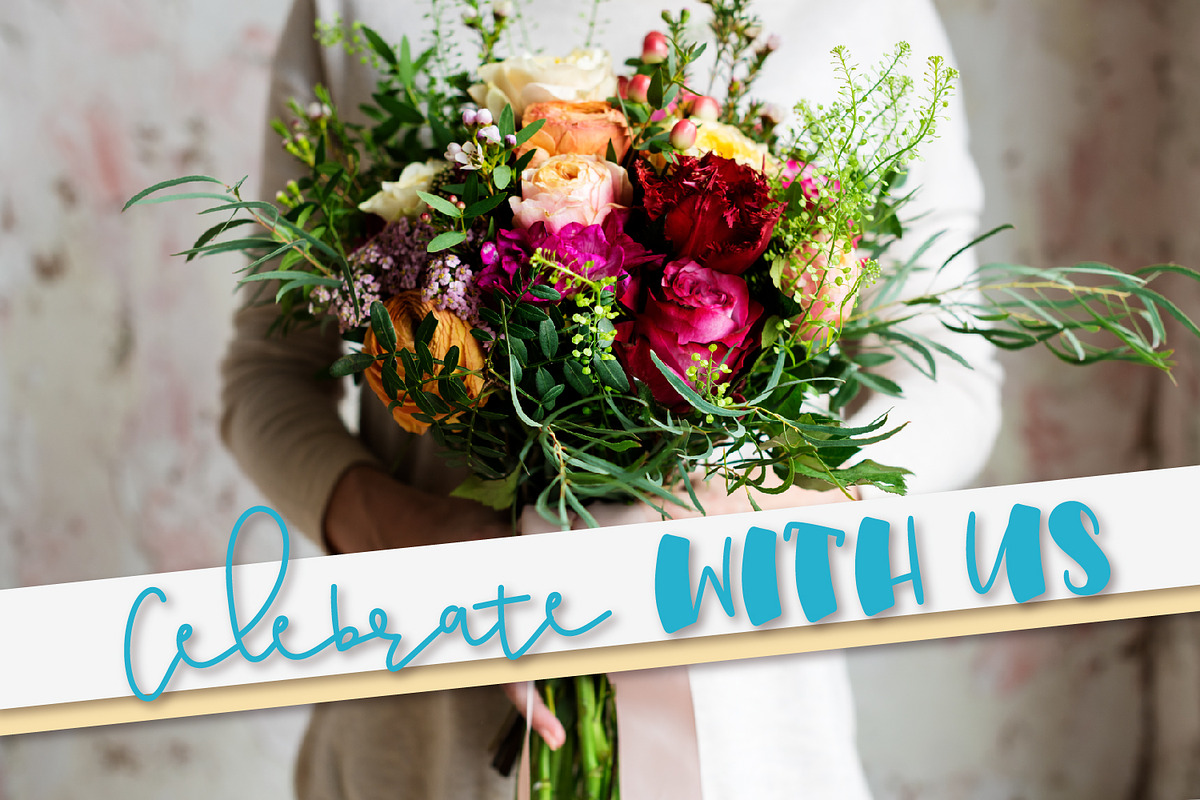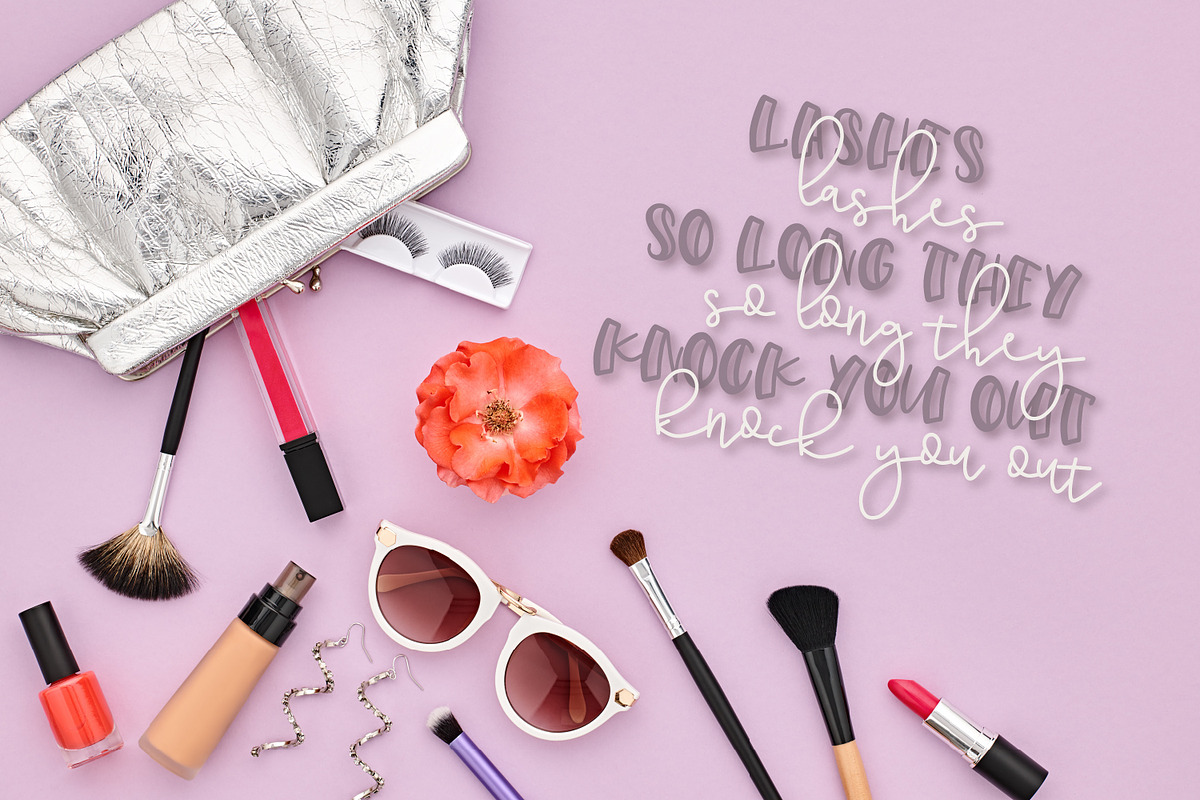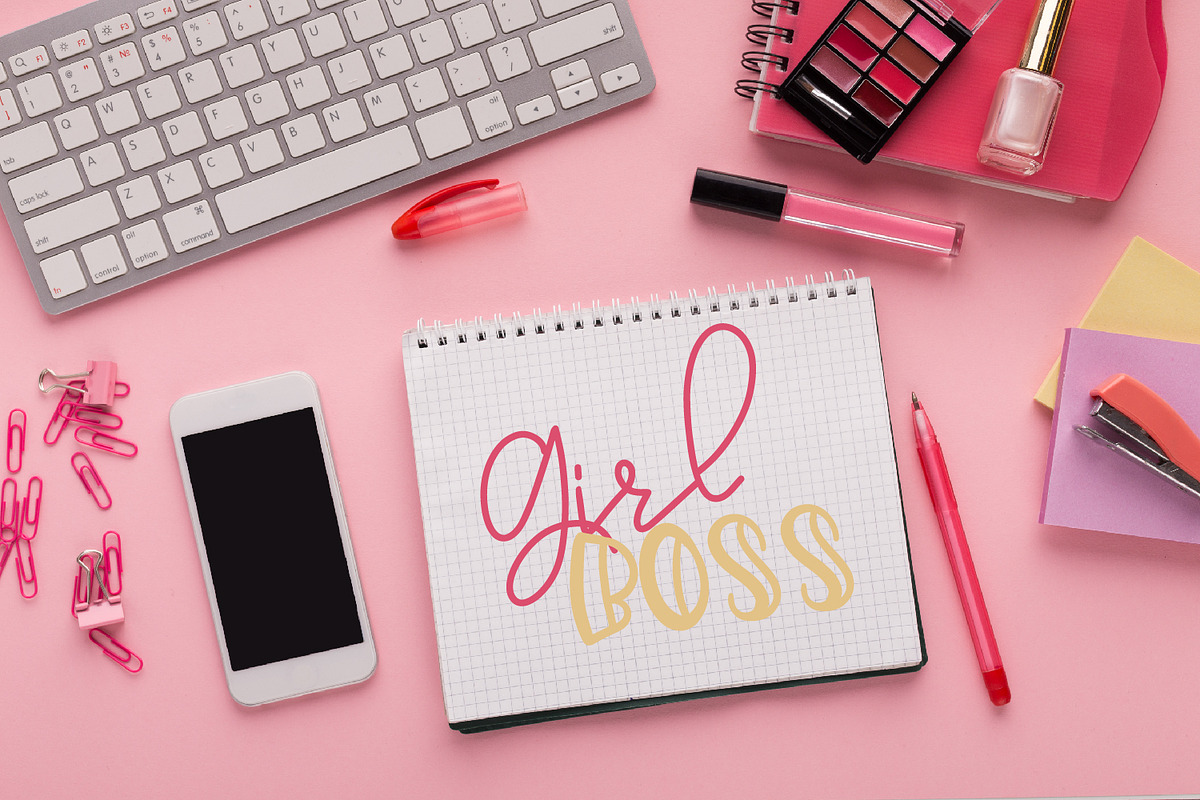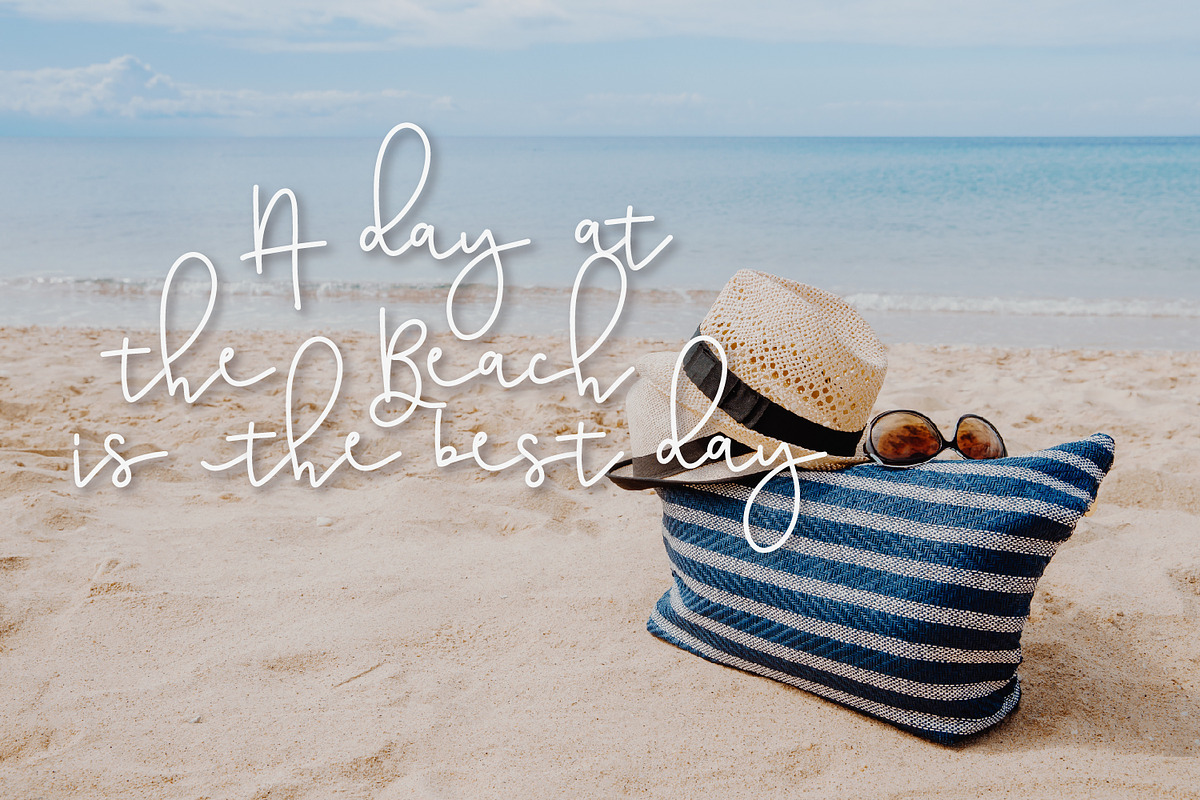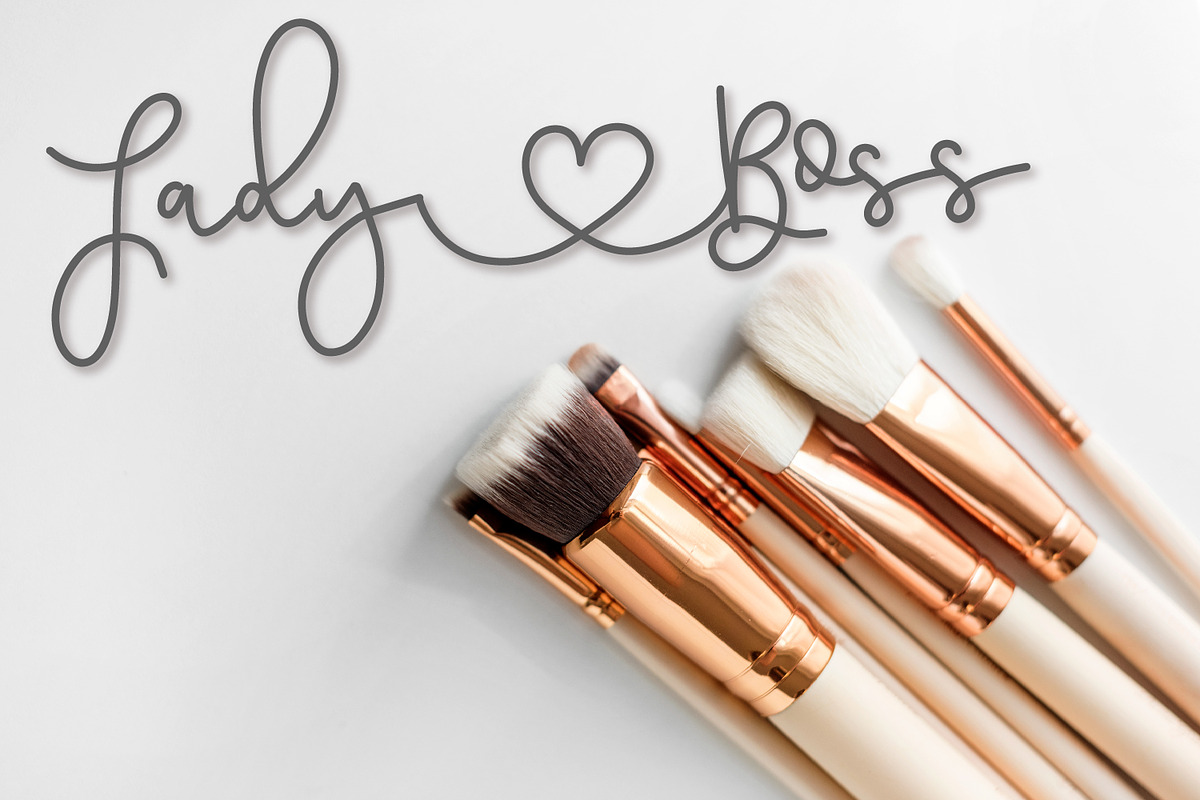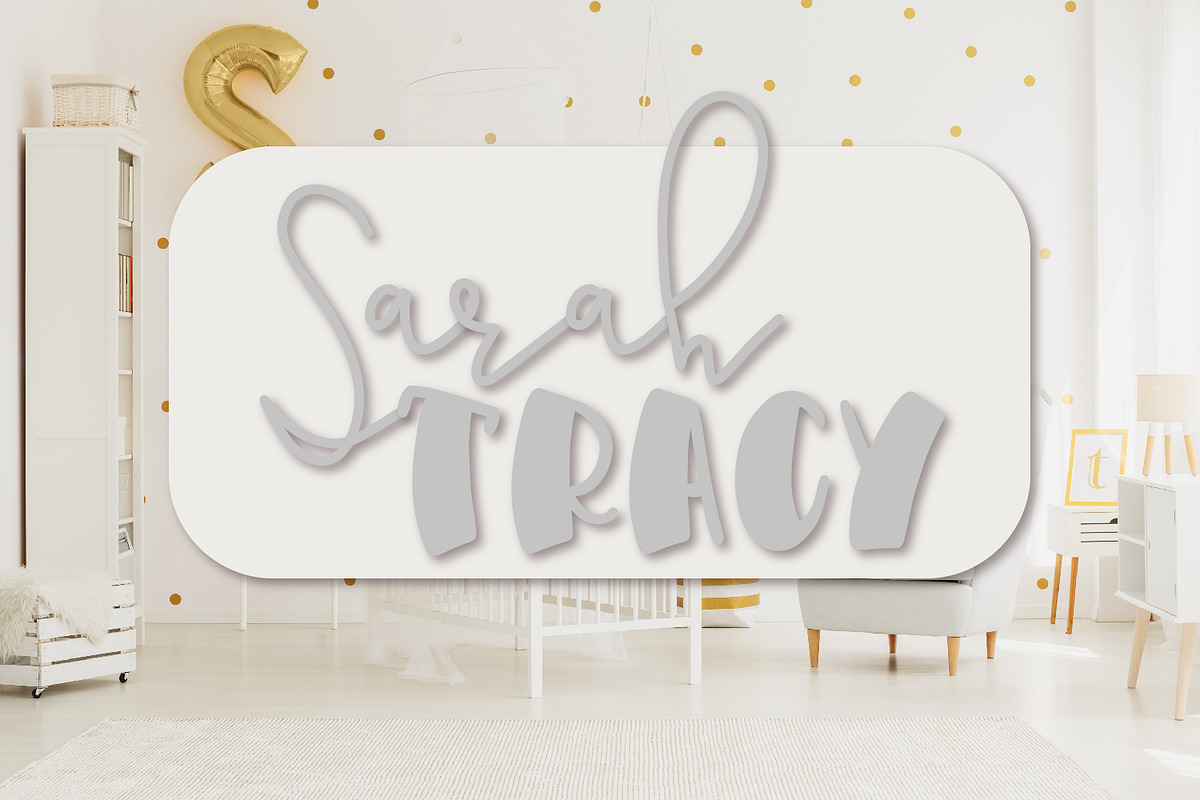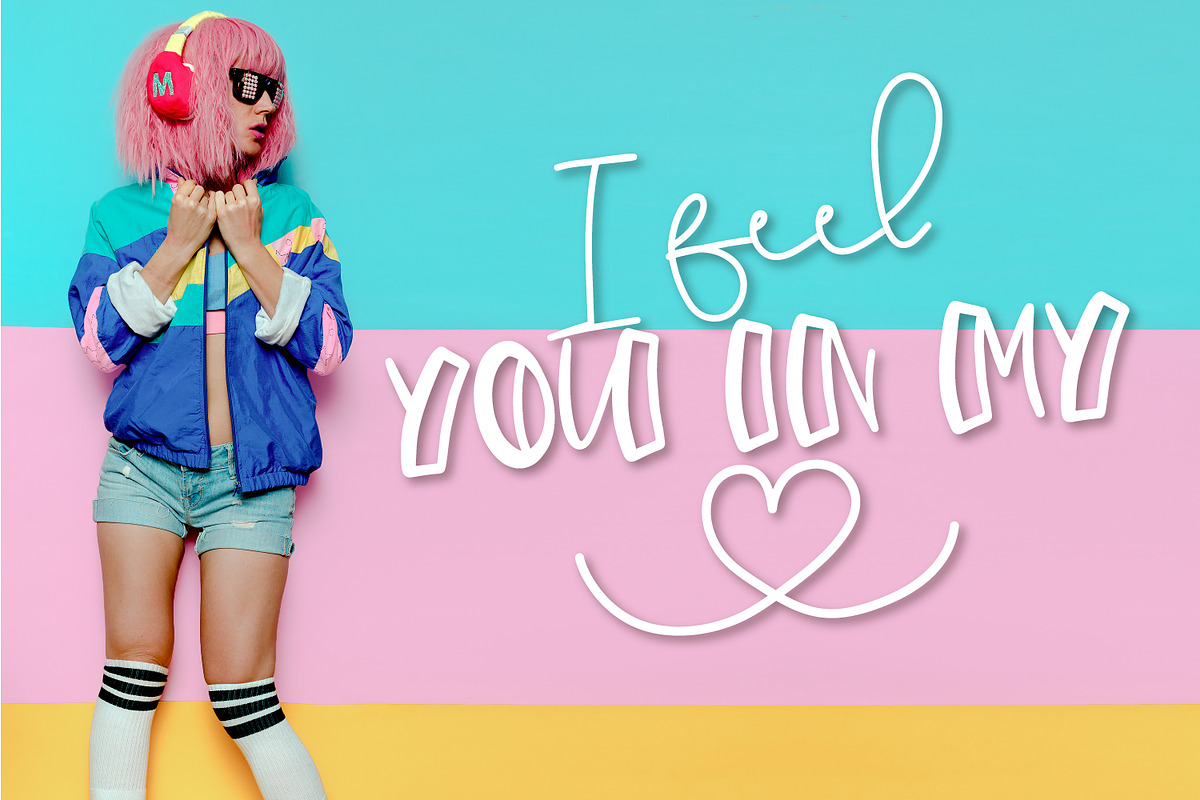
Golden Bars - A Font Pair
Golden Bars, a monoline script font with a hand drawn sans serif print.
Why Golden Bars - A Font Pair is worth a look
Golden Bars - A Font Pair by CraftyLittleNodes fits naturally into Branding, posters, packaging, typography.